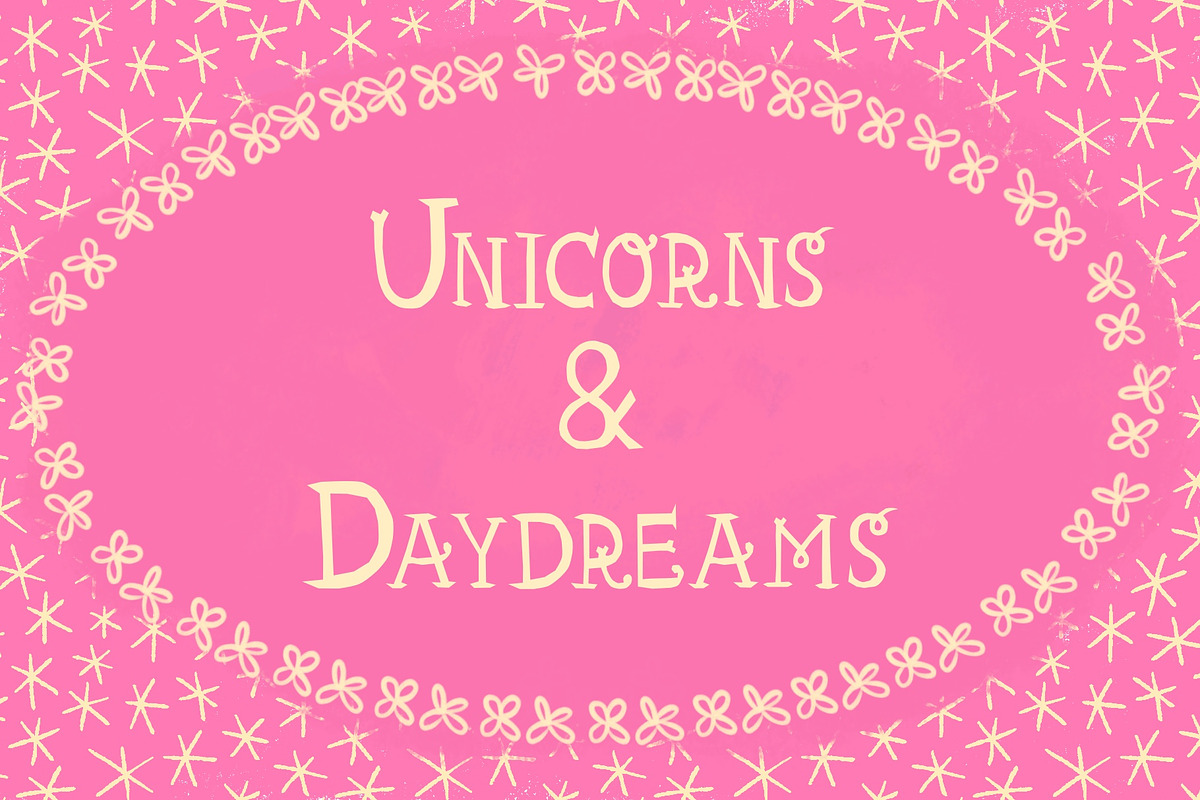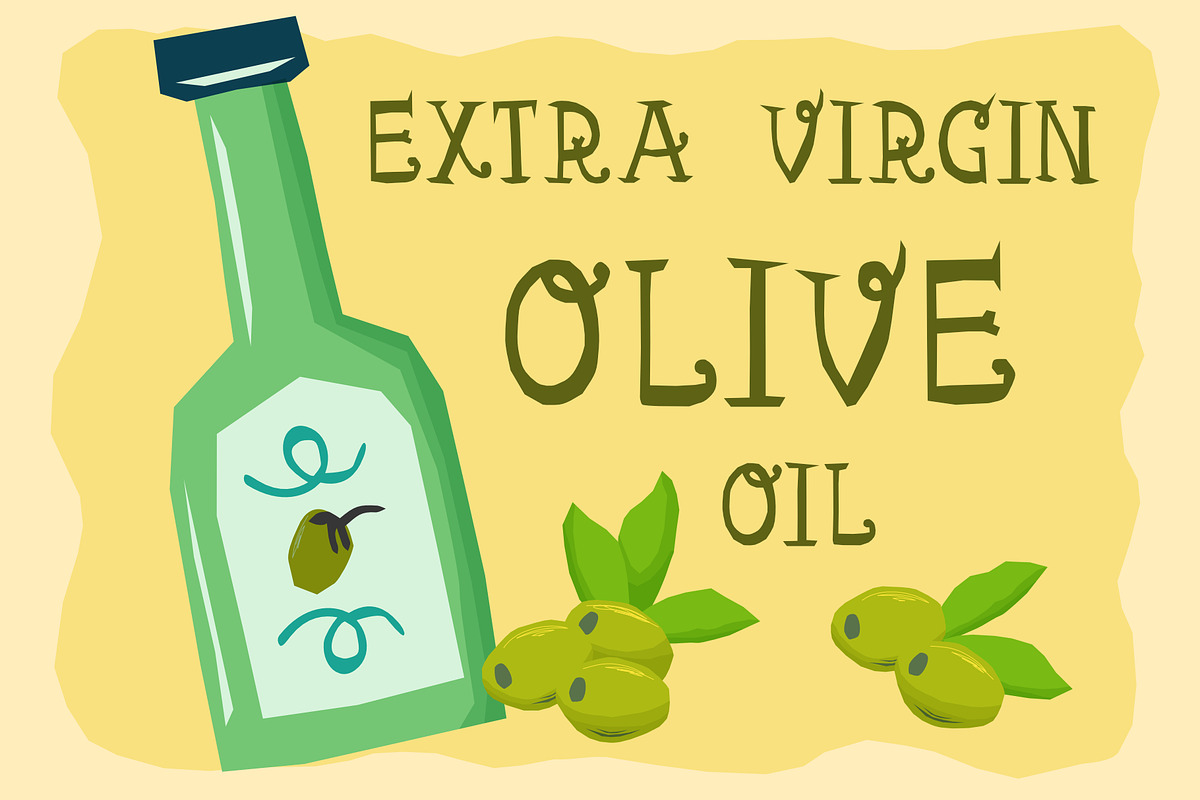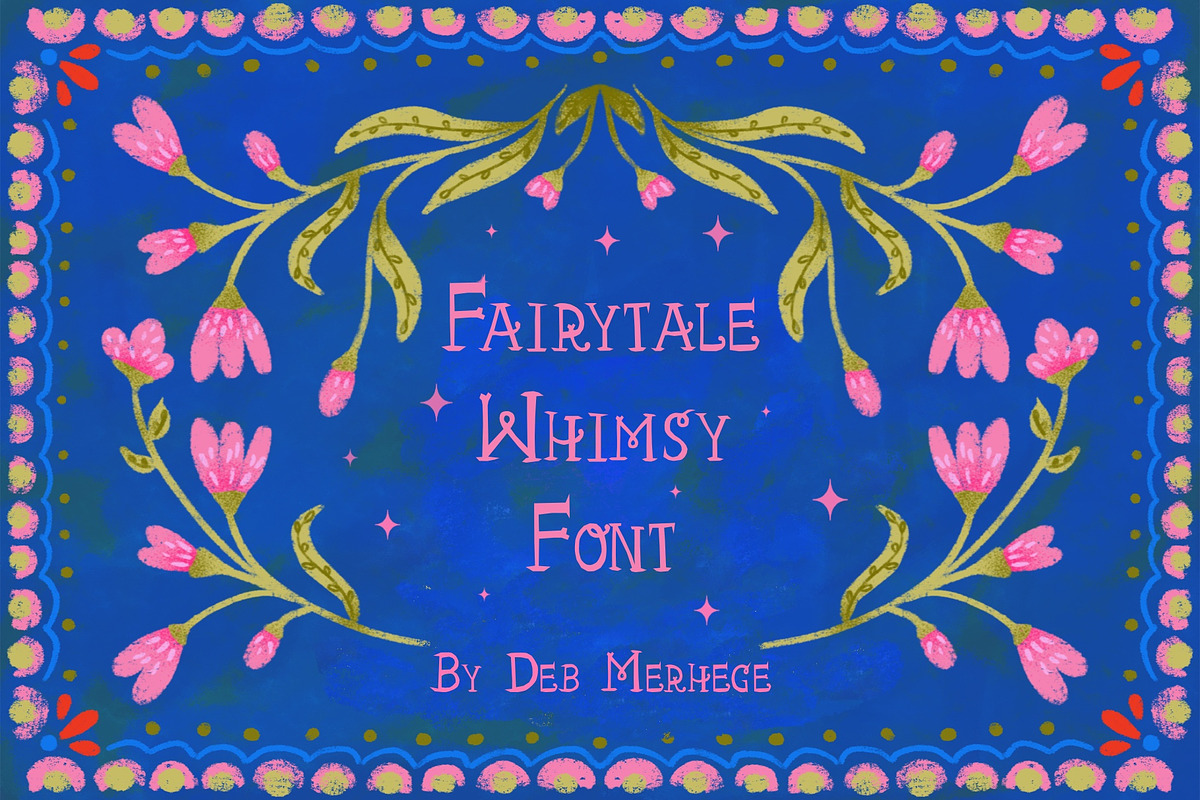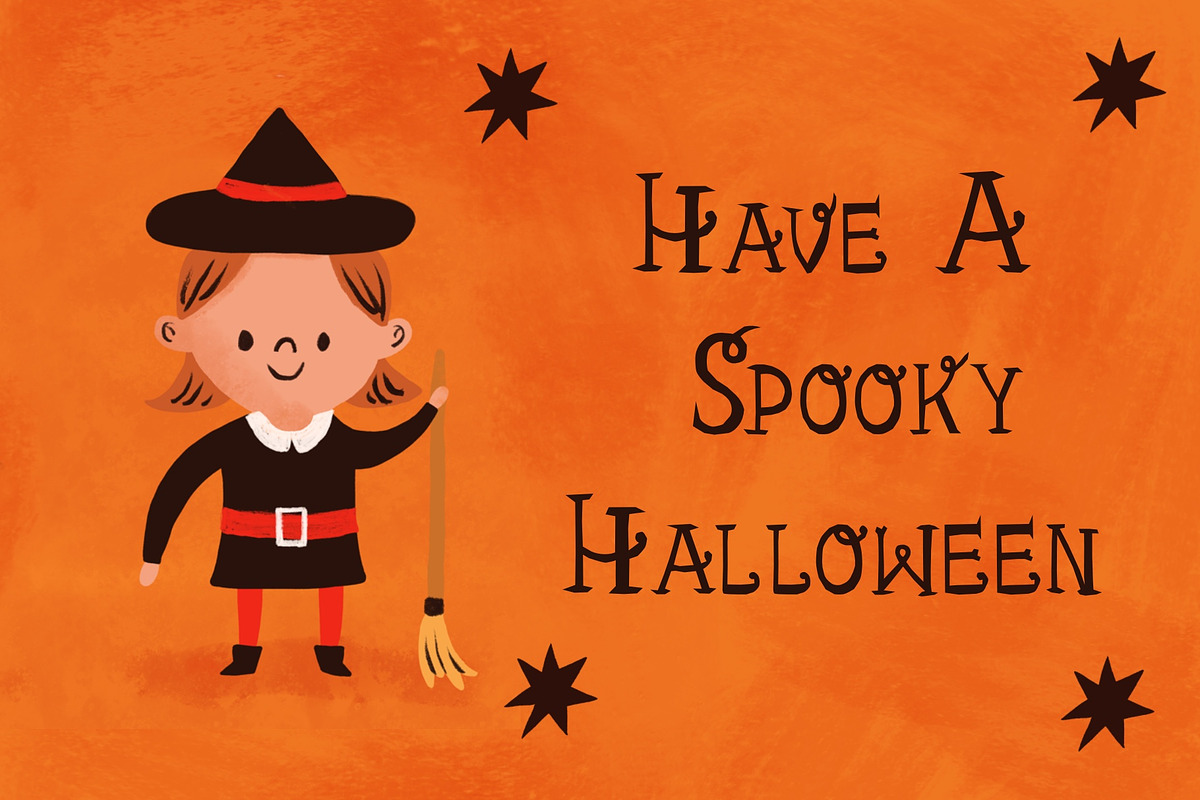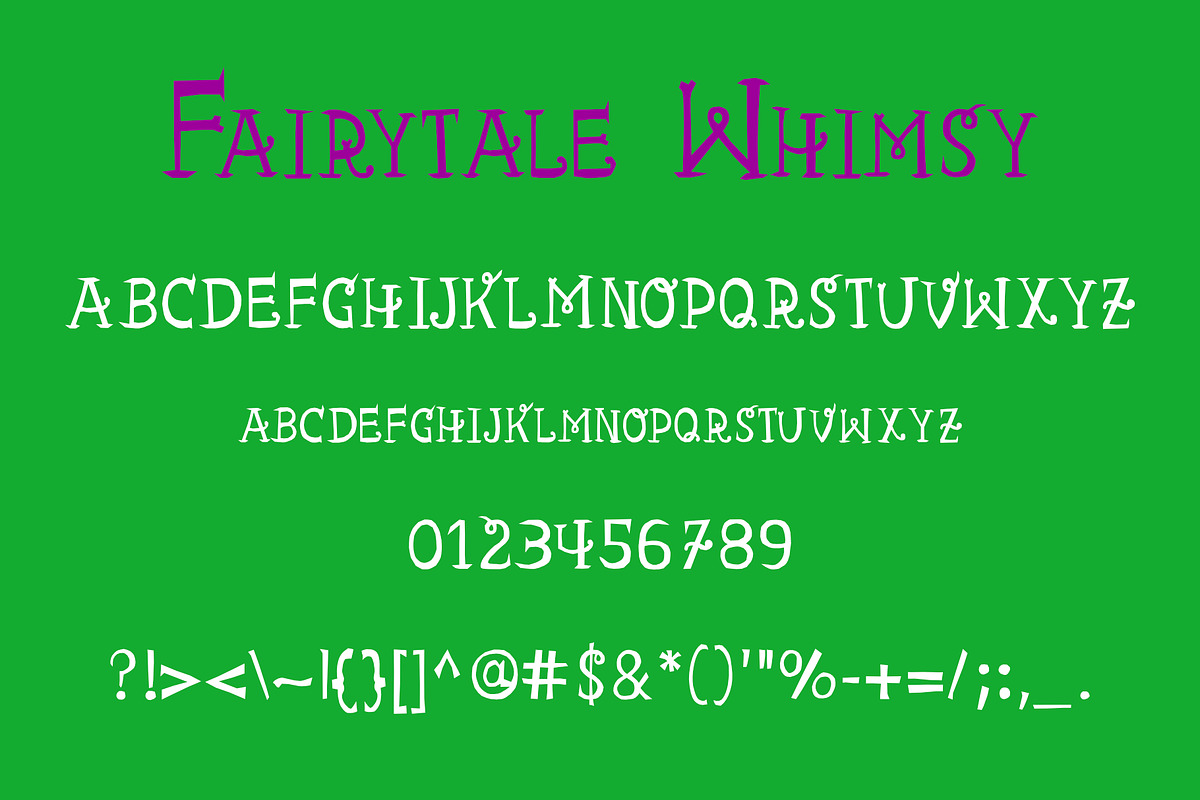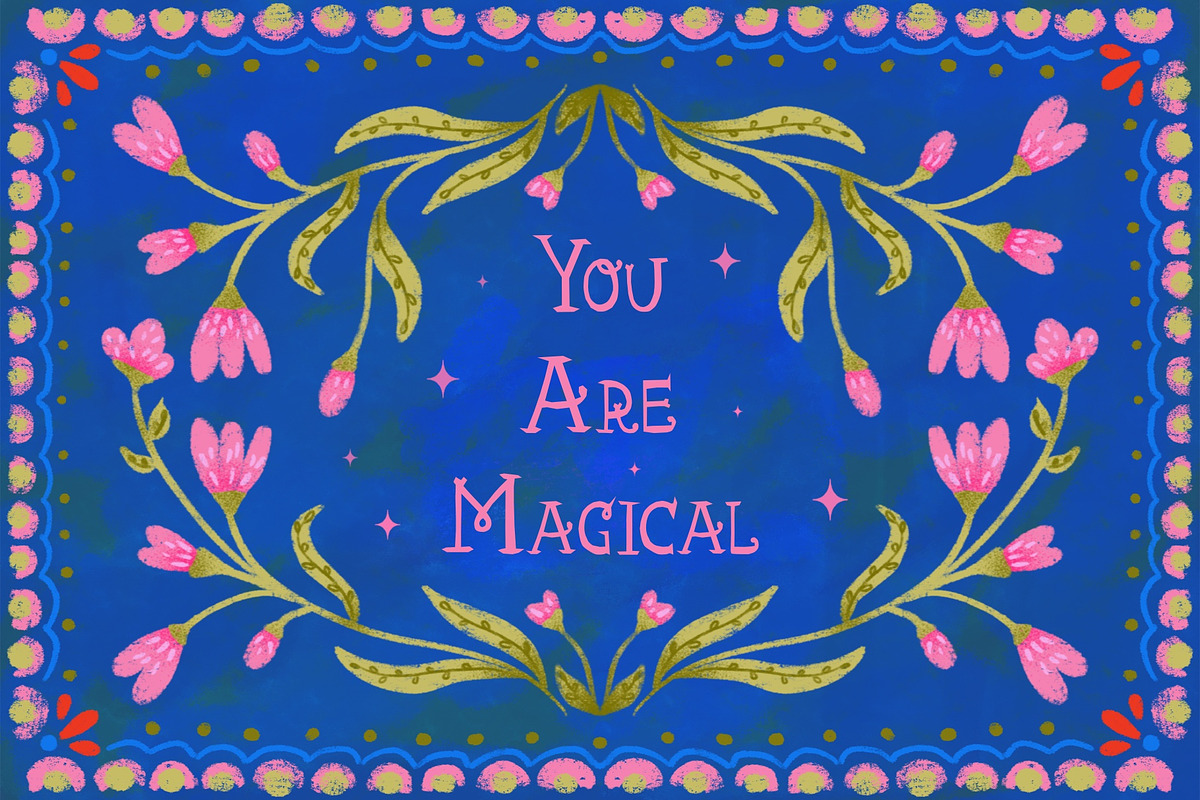
Fairytale Whimsy Hand Drawn Font
Whimsical, dreamy, and full of storybook charm, this handmade font brings a touch of magic to every design. Perfect for children’s brands, nursery decor, party invitations, book covers, stickers, whimsical packaging, and fantasy-inspired creative projects.